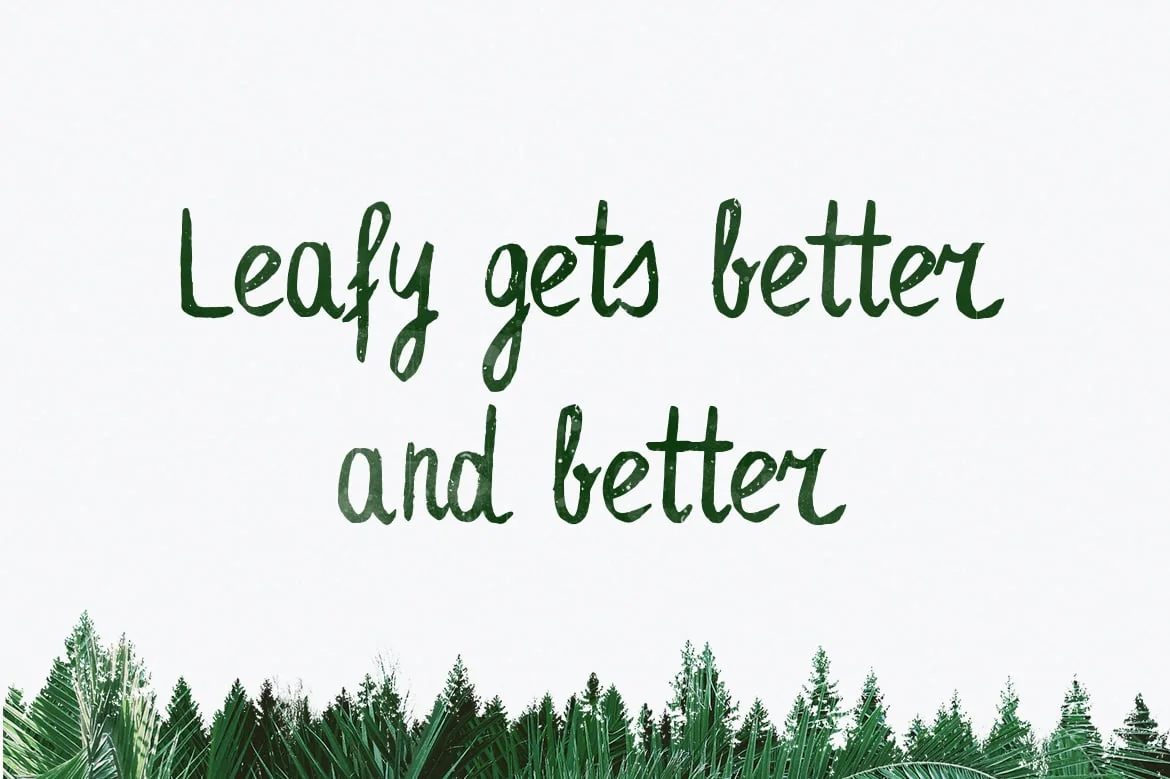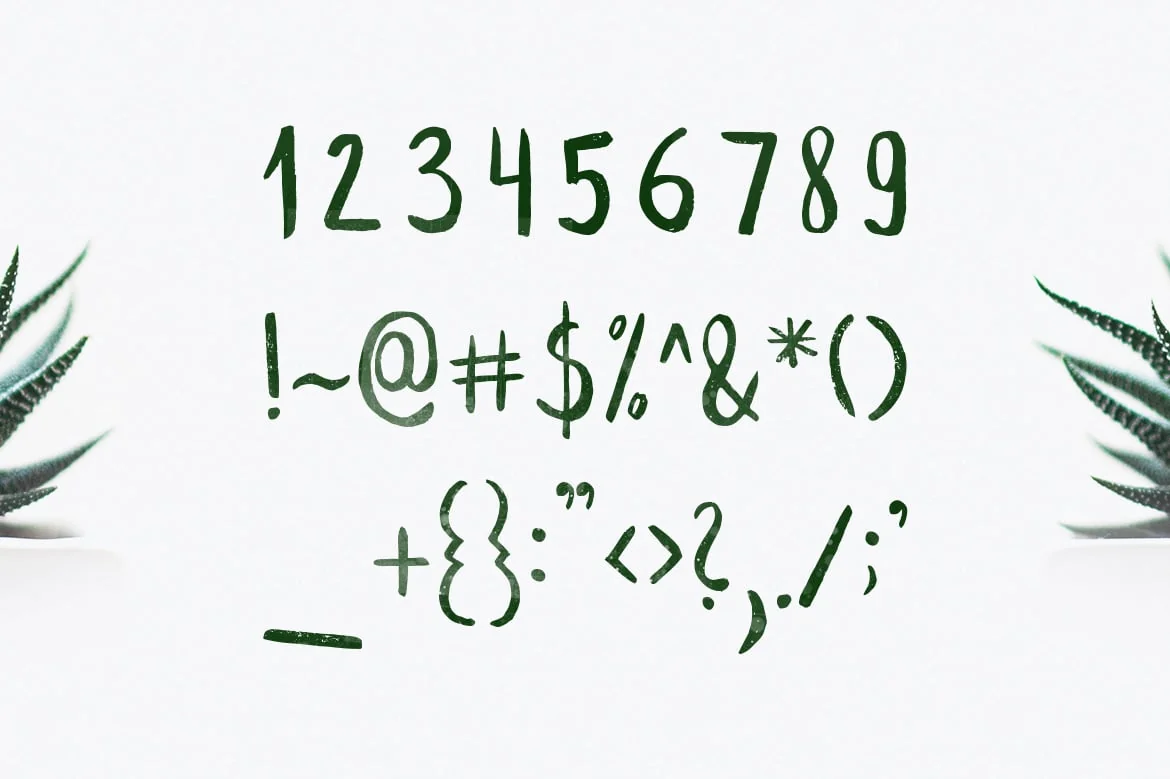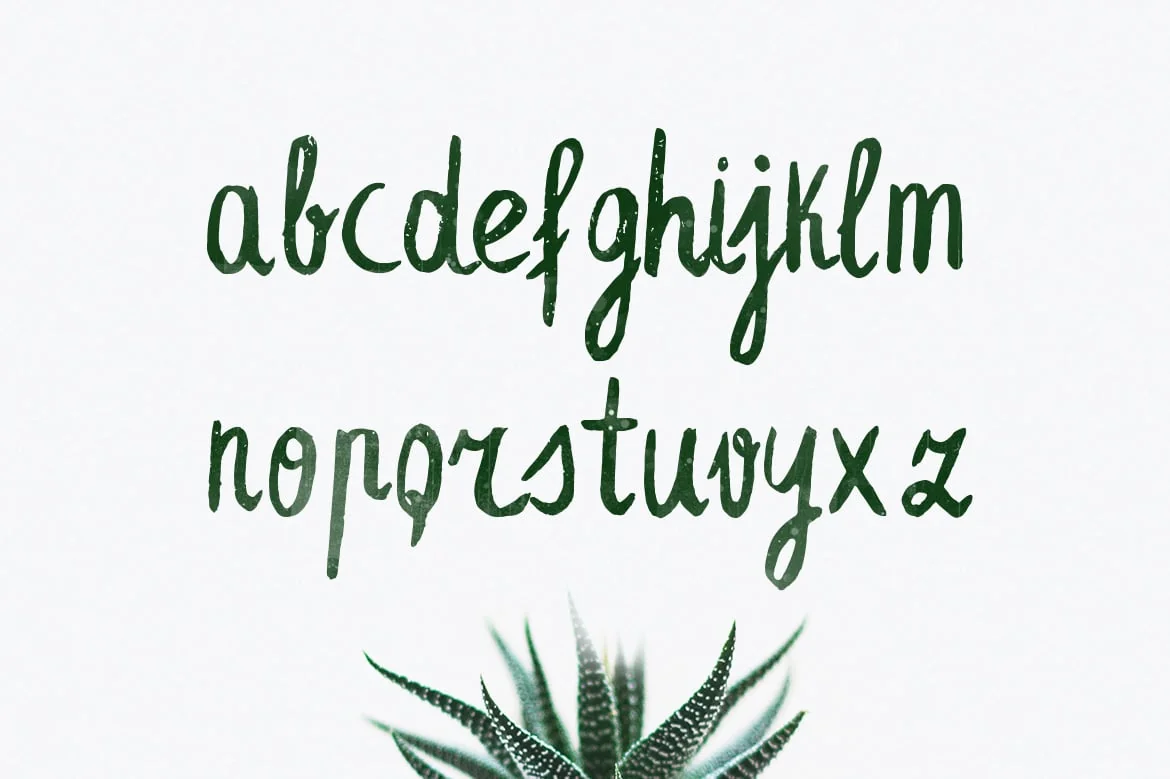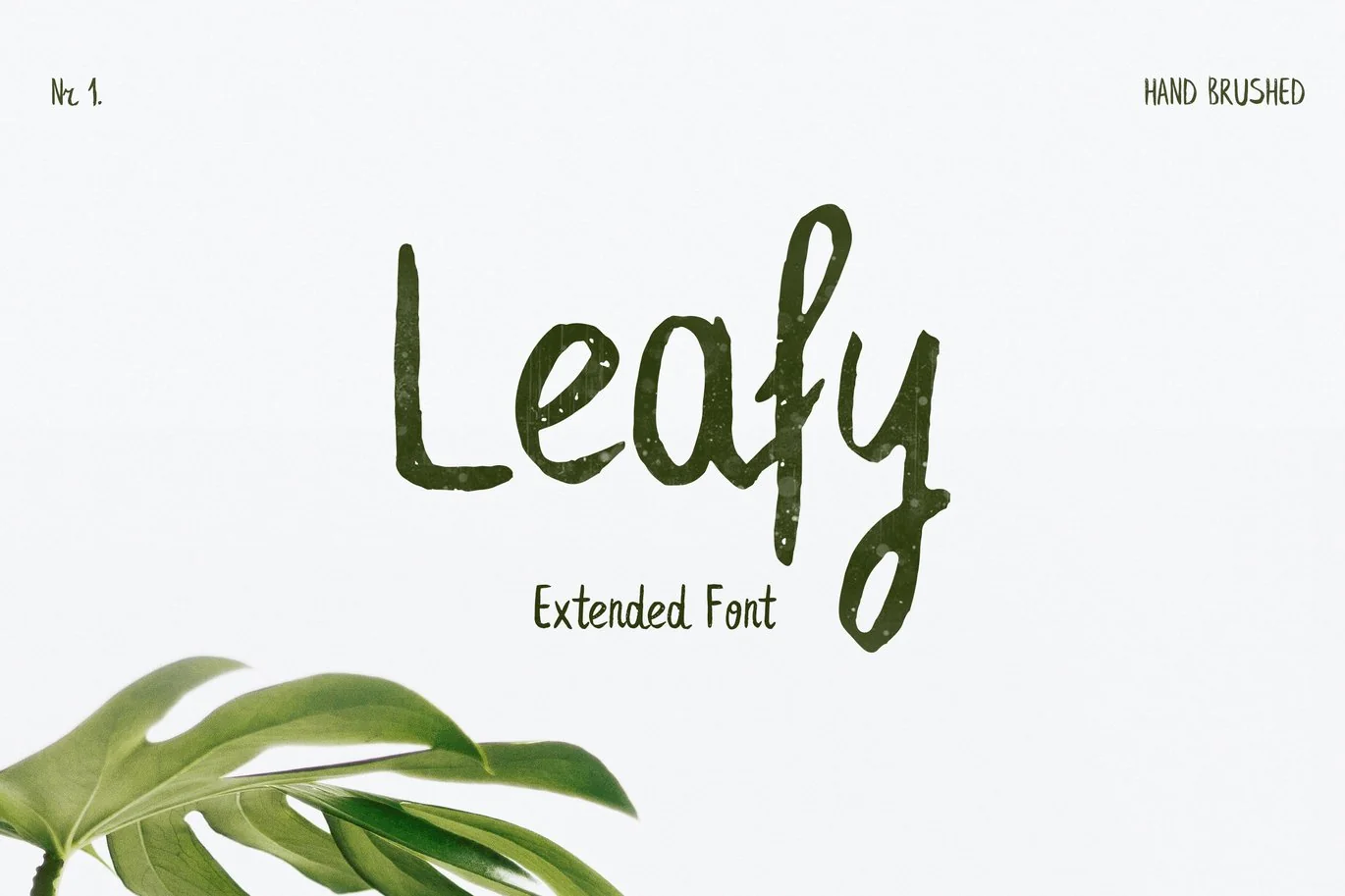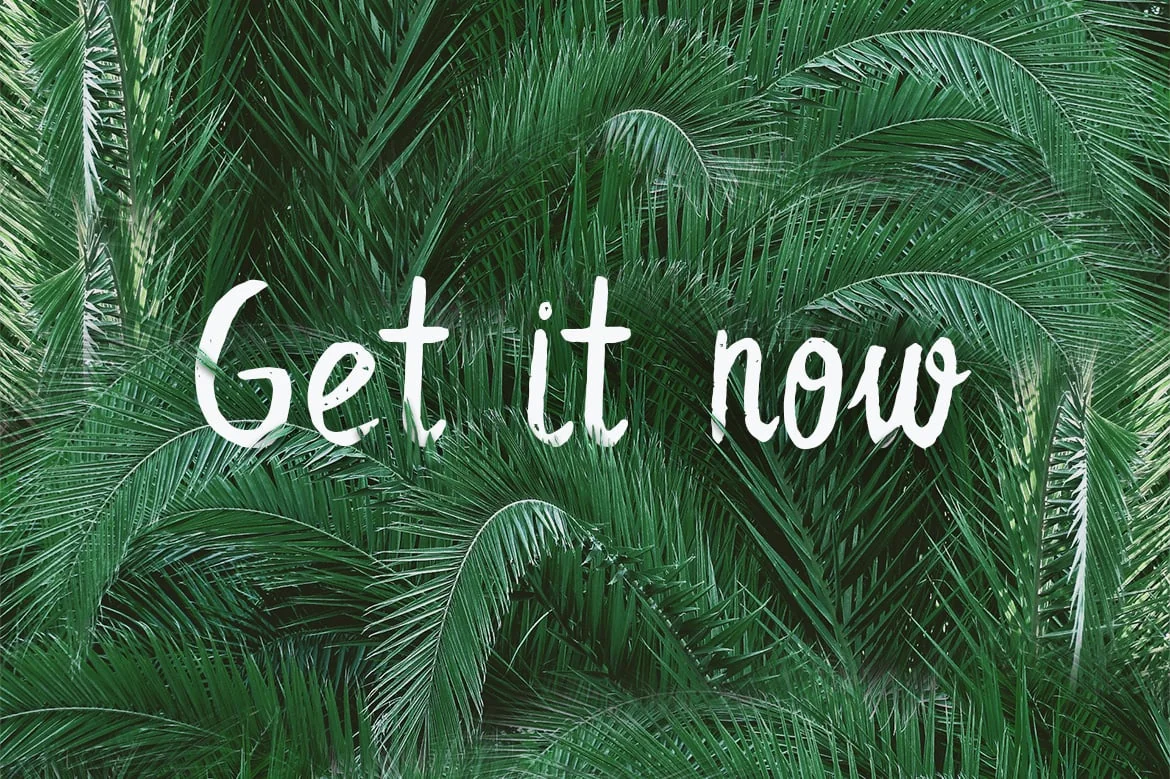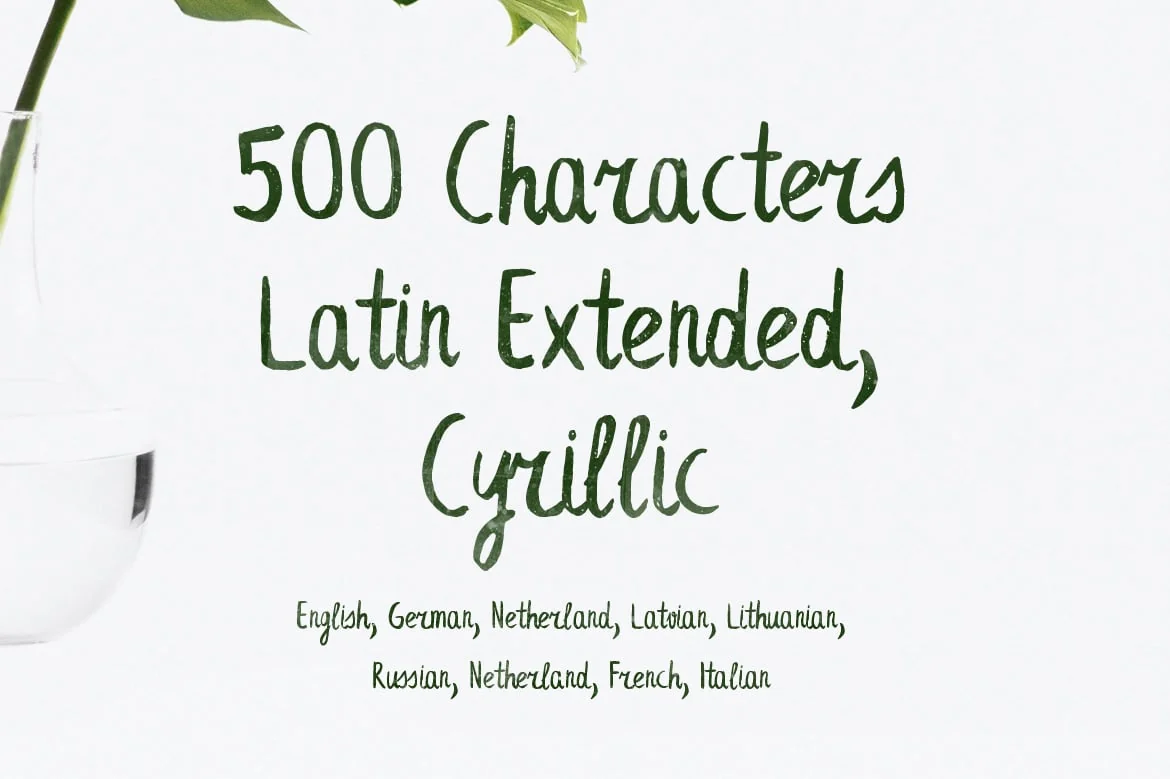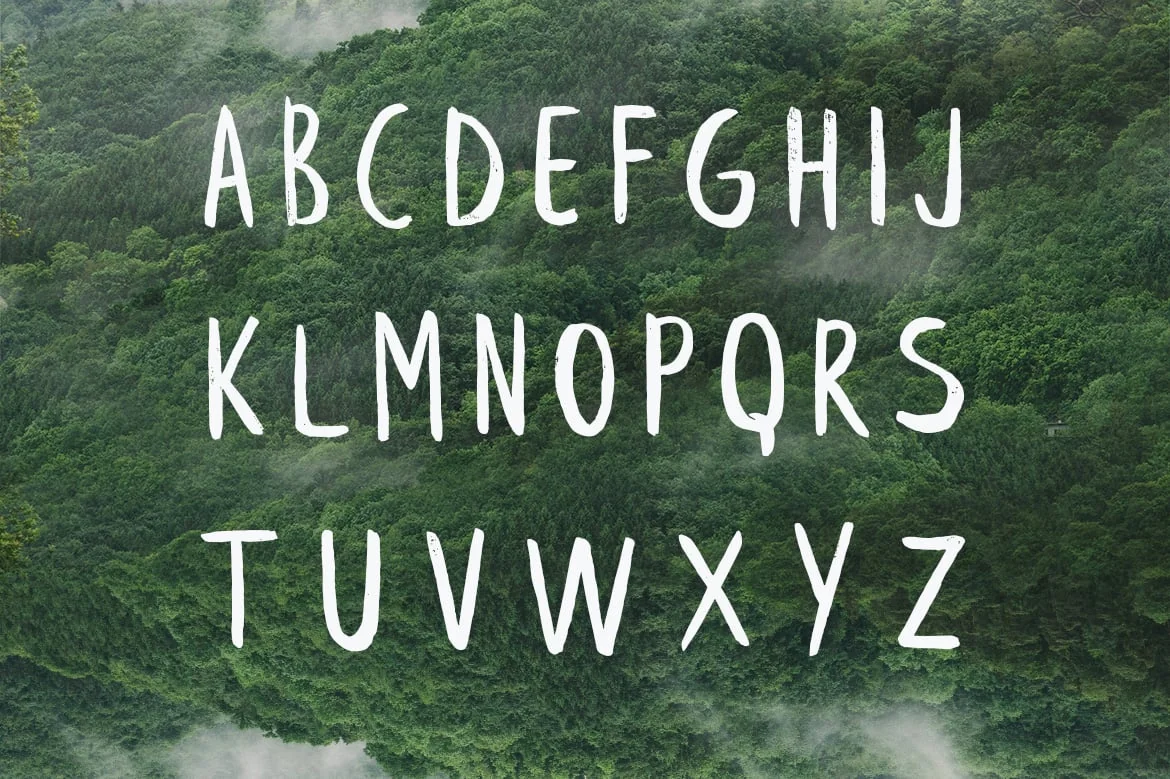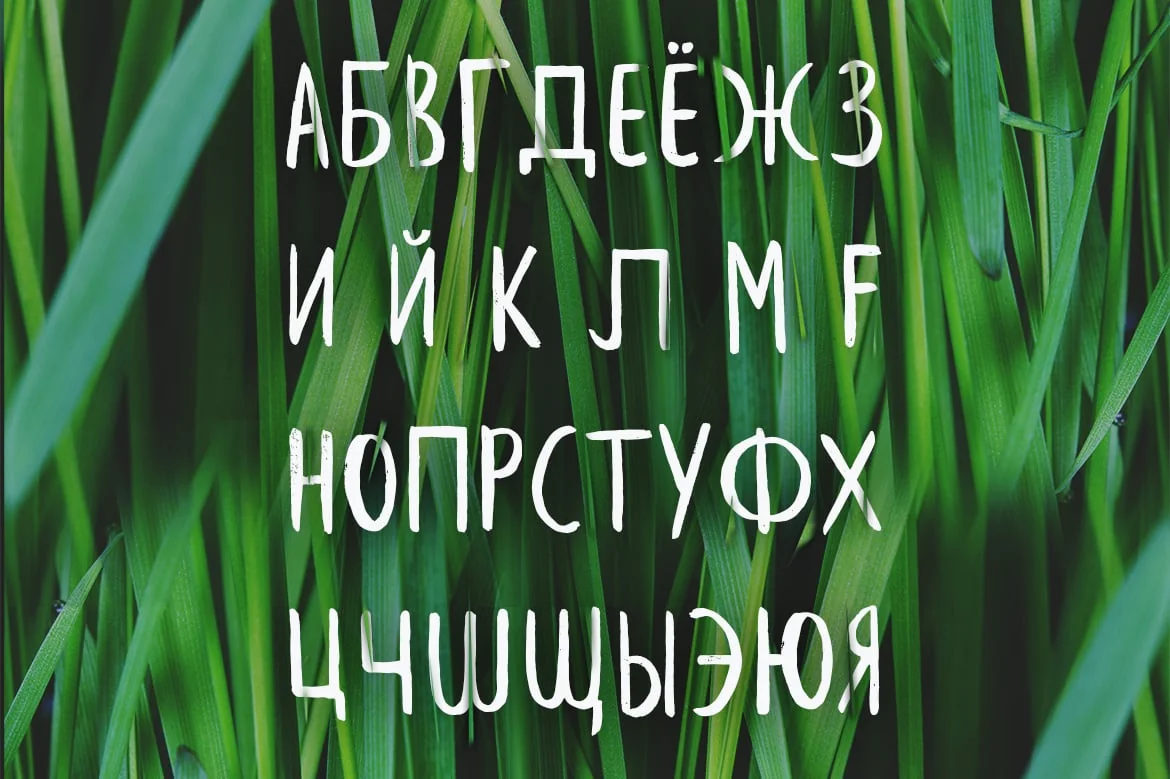
Leafy Extended Brush Font
The new Leafy Extended comes with upgraded glyphs, Cyrillic support, and latin extended character base, with all small letters included. Every single letter has been hand drawn with a thin water brush on acrylic paper, this making the typeface unique. This is the extended version of the already made Leafy free Brush Font.